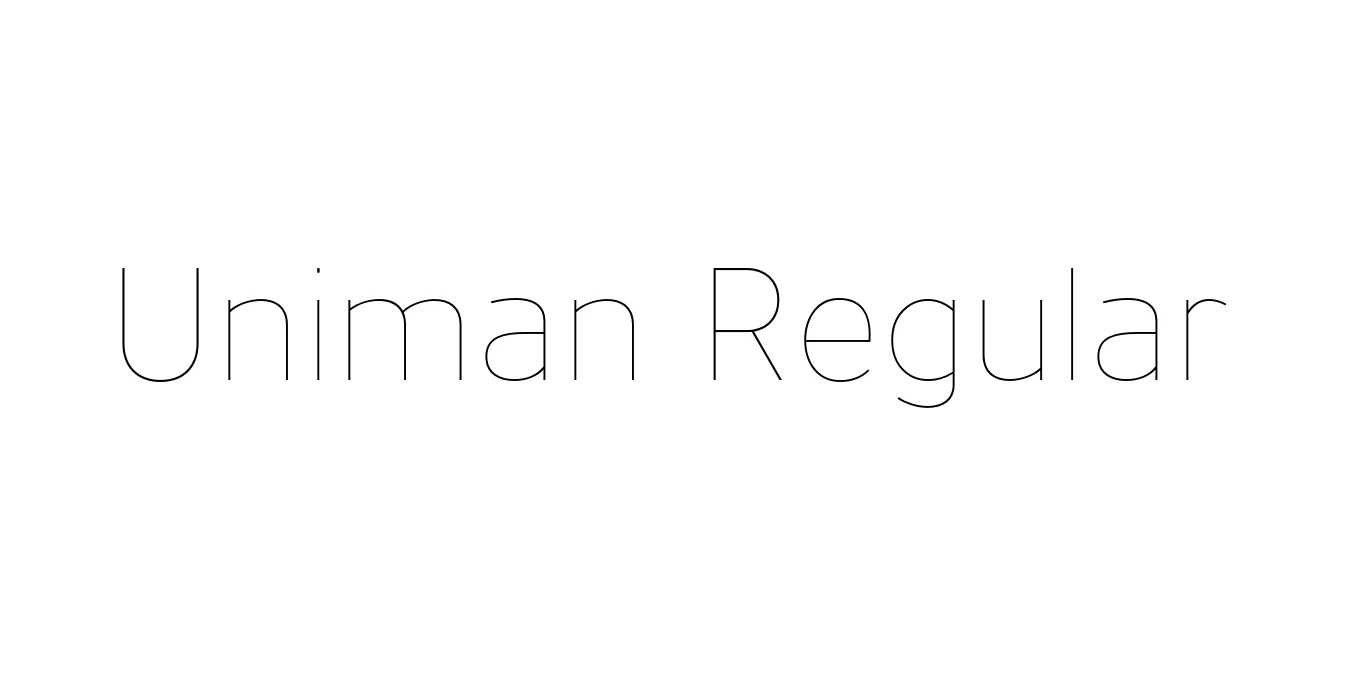
Uniman Regular
Designed by Zhalgas Kassymkulov
Uniman Regular is a sophisticated geometric sans-serif typeface designed with a focus on modern clarity and structural balance. Created by the talented designer Zhalgas Kassymkulov, the font family was engineered to offer a high level of legibility through its wide apertures and substantial x-height. Its design philosophy emphasizes a neutral yet friendly aesthetic, making it an ideal choice for contemporary projects that require a clean, unobtrusive typographic voice.
The Uniman family has gained significant traction in the design community due to its versatility across both digital and analog mediums. It serves as a robust alternative to classic neo-grotesques, offering a fresher, more geometric approach to corporate and editorial design. Whether utilized in complex user interfaces or minimalist branding materials, Uniman Regular maintains a professional and organized appearance that enhances the overall user experience.
Uniman Regular Best Uses
Highly effective for body text, navigation bars, and interactive UI elements due to its high legibility.
Perfect for creating professional and trustworthy corporate identities and logos.
Excellent for clean layouts, sub-headers, and informative brochures in both print and digital formats.